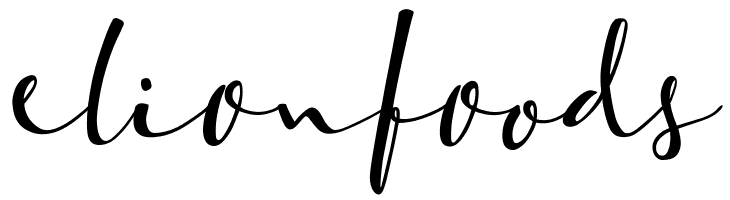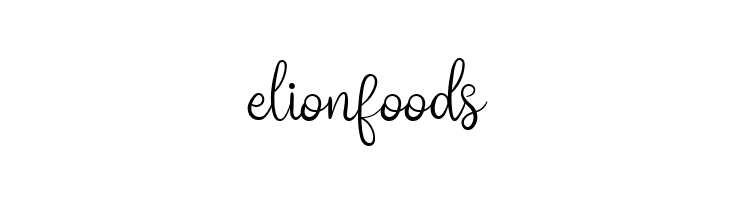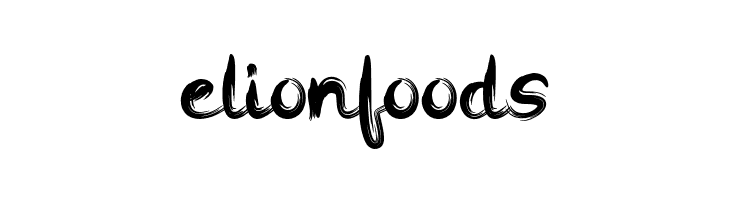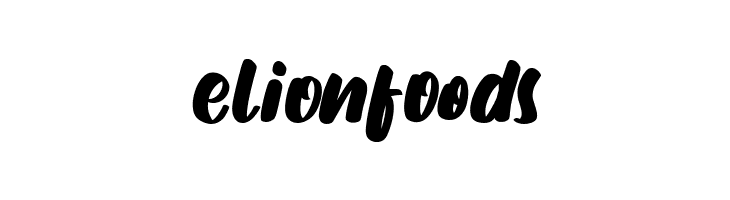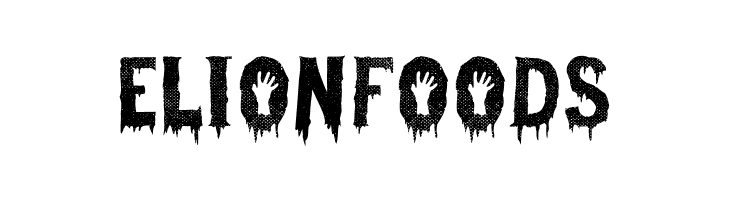
A bold, distressed font with a textured, vintage stamp-like appearance.
A lively and expressive handwritten font with dynamic strokes and playful elegance.
A decorative font with characters encased in diamond-topped rings, perfect for elegant occasions.
A playful, ring-themed font with diamond accents on uppercase letters.
A smooth, flowing script font with a natural handwriting style.
A playful, flowing script font with smooth, rounded edges and consistent stroke width.
A playful, bold font with rounded, dynamic letterforms.
A modern, elegant script font with a flowing, handwritten style.
A fluid, cursive script font with a natural handwritten appearance.
A playful, handwritten font with smooth, rounded edges and consistent stroke width.